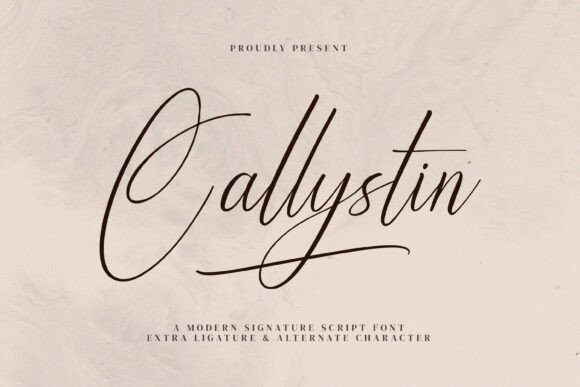
Discover the Elegance of Callystin Font
As a designer, there’s nothing quite like the thrill of bringing a new project to life. You’ve got a vision, a concept, and a blank canvas waiting to be transformed into something truly special. But what if you’re missing that one key element that sets your design apart from the rest? Enter the Callystin Font, a stylish and elegant script font that’s sure to elevate your creations to new heights.
With its smooth, flowing letters and modern look, the Callystin Font is the perfect choice for designers looking to add a touch of sophistication to their work. Whether you’re creating a logo, invitation, or any other project that requires a unique and personal touch, this font is sure to impress. And with its versatility and range of uses, the Callystin Font is an invaluable addition to any designer’s toolkit.
Callystin Font Key Features
- Unique Characteristics: Callystin Font boasts a unique blend of modern and elegant styles, making it ideal for creative and professional projects.
Callystin Font Review
As a designer, I was excited to dive into the Callystin Font and see what it had to offer. Overall, I’d say it’s a solid addition to any designer’s toolkit.
- The Callystin Font has a unique, hand-drawn feel that adds a touch of personality to any design. It’s perfect for projects that need a bit of whimsy.
- The font is highly legible, even at smaller sizes, making it a great choice for body text or captions.
- The Callystin Font comes in a range of weights, from light to bold, giving designers plenty of options for styling their text.
- The Callystin Font may not be the best choice for projects that require a more formal or corporate feel. Its hand-drawn style may come across as too casual.
- The font’s ligatures and swashes can sometimes be distracting, particularly in longer blocks of text.
Overall, I think the Callystin Font is a great choice for designers looking to add some personality to their projects. While it may not be suitable for every project, it’s definitely worth having in your toolkit.
Tips for Getting the Most Out of Callystin Font
Use Callystin Font for titles, headings, and body text to add a touch of elegance to your designs.
Experiment with different font sizes and colors to create a visually appealing contrast.
Combine Callystin Font with other fonts to create a unique and eye-catching typography.
Callystin Font is ideal for:
Designing business cards and letterheads.
Creating presentations and reports.
Building websites and landing pages.
Alternatives to Callystin Font for Designers
Great Vibes Font is a modern, elegant script font designed by Handmade Font. It’s ideal for creating a sophisticated and professional look in branding, logos, and advertising materials. Great Vibes Font has a more refined and precise feel compared to Callystin Font, making it suitable for formal and business-related projects.
Comparison: Great Vibes Font is more polished and refined, while Callystin Font has a more playful and whimsical feel.
Alex Brush Font is a handwritten script font designed by Laura Worthington. It’s perfect for creating a personal and emotional connection with the audience in wedding invitations, stationery, and other creative projects. Alex Brush Font has a softer and more organic feel compared to Callystin Font, making it suitable for projects that require a touch of warmth and personality.
Comparison: Alex Brush Font is more fluid and expressive, while Callystin Font has a more geometric and structured feel.
Dancing Script Font is a beautiful, elegant script font designed by Pablo Impallari. It’s ideal for creating a luxurious and high-end look in branding, packaging, and advertising materials. Dancing Script Font has a more dramatic and sophisticated feel compared to Callystin Font, making it suitable for projects that require a touch of glamour and sophistication.